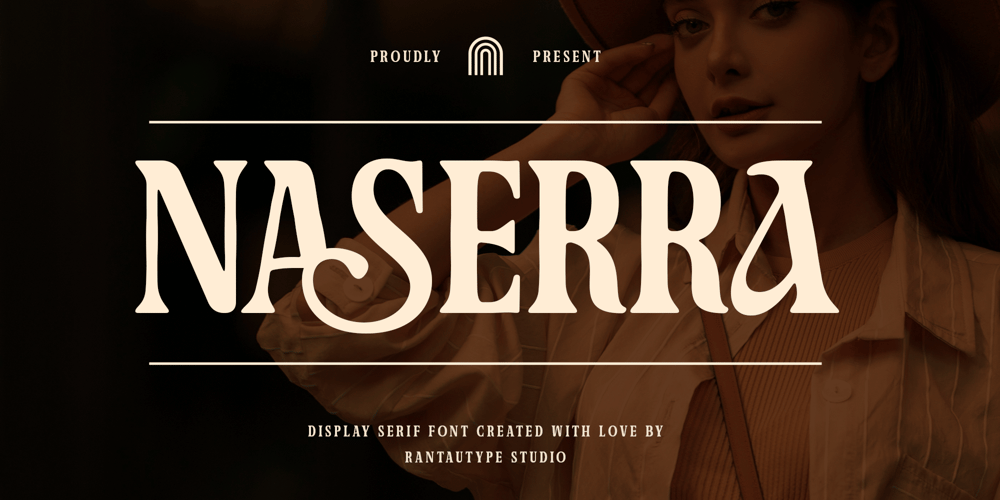
Naserra Font Family was designed by Yudi Pratama Chandra and published by RantauType. Naserra contains 2 styles and family package options. Naserra is a modern display font with soft curve and versatile. We love how alternate A, M, N form it so classy and unique.Naserra separate in reguler and italic, is a perfectly choice for any creative endeavor, chic, lifestyle design such as logos, advertisements, watermark on photography, stationery, branding project, display and magazine, invitation, corporate brand, product design, label, business project and many other project.What you have: Standar Glyphs Numberial and Functional Alternate and Ligature Works on PC & Mac Simple installations Accessible in Adobe Illustrator, Adobe Photoshop, Adobe InDesign, even work on Microsoft Word. Fonts include Multilingual Character for: Afrikaans, Albanian, Asu, Basque, Bemba, Bena, Breton, Chiga, Cornish, Dutch, English, Estonian, Filipino, Finnish, Friulian, Galician, Gusii, Indonesian, Irish, Italian, Kabuverdianu, Kalenjin, Kinyarwanda, Luo, Luxembourgish, Luyia, Machame, Makhuwa-Meetto, Makonde, Malagasy, Manx, Morisyen, North, Ndebele, Nyankole, Oromo, Portuguese, Quechua, Romansh, Rombo, Rundi, Rwa, Samburu, Sango, Sangu, Scottish, Gaelic, Sena, Shambala, Shona, Soga, Somali, Spanish, Swahili, Swedish, Swiss, German.Thank you for your purchase!Hope you enjoy with our font!